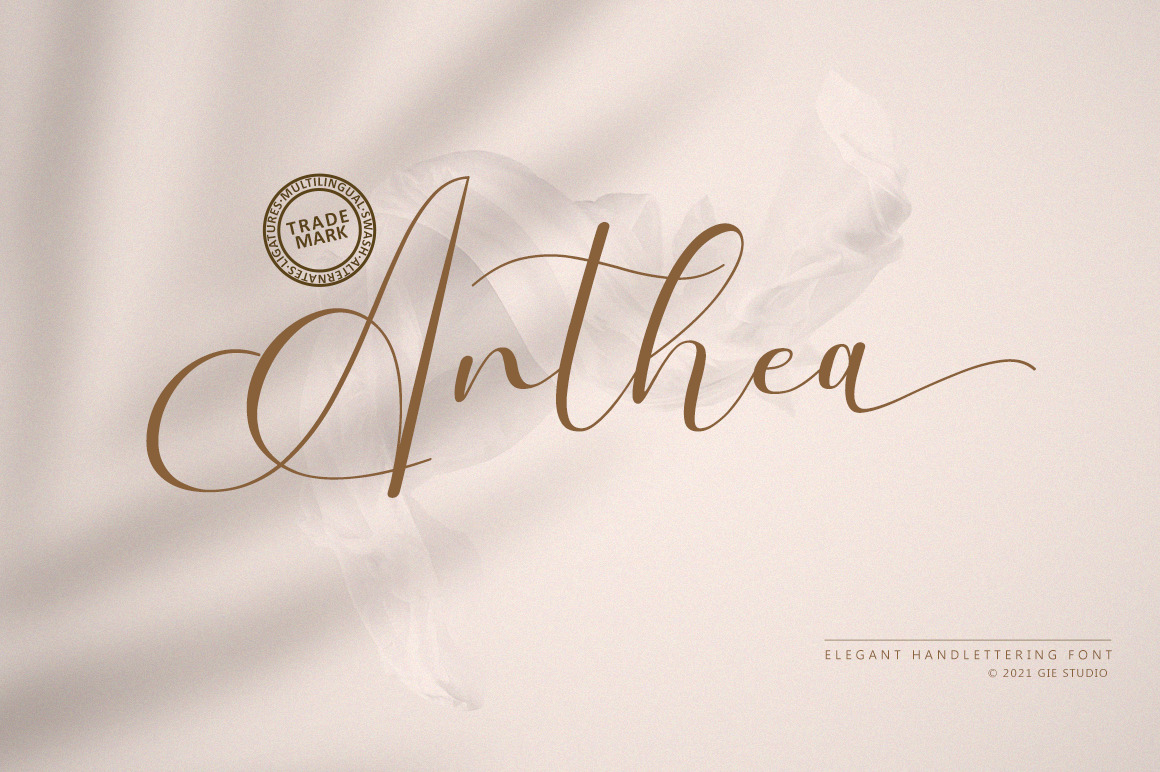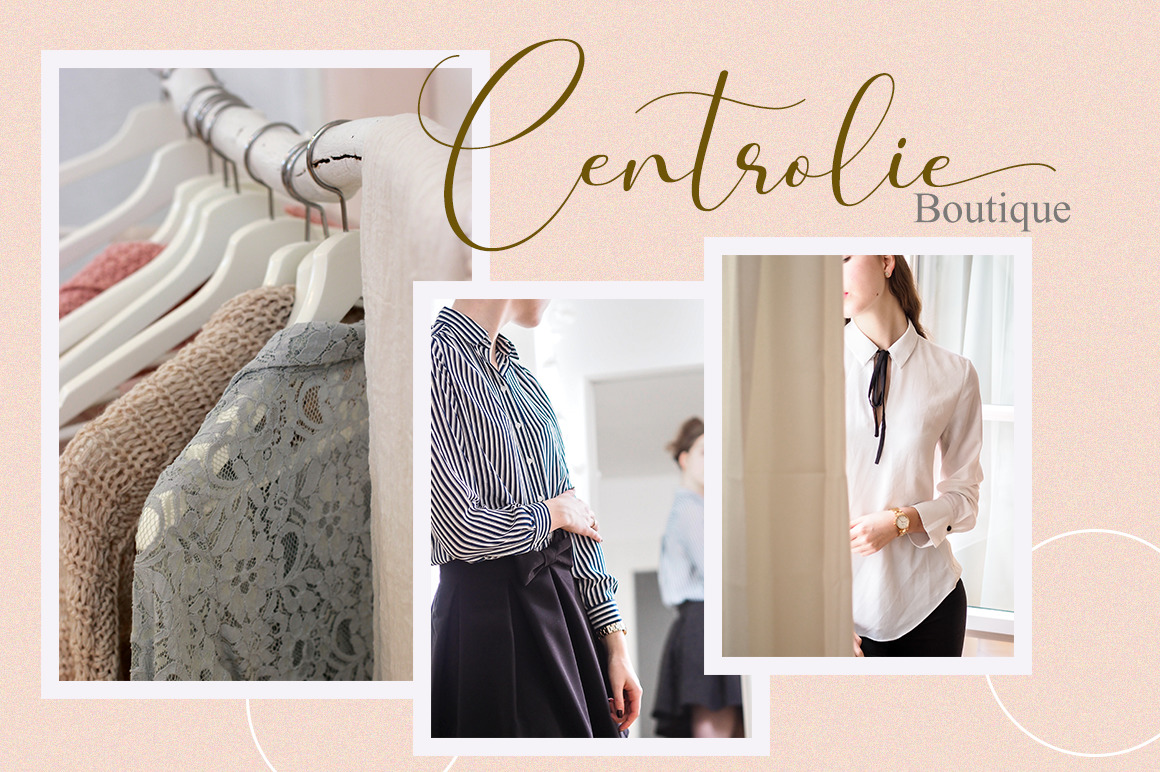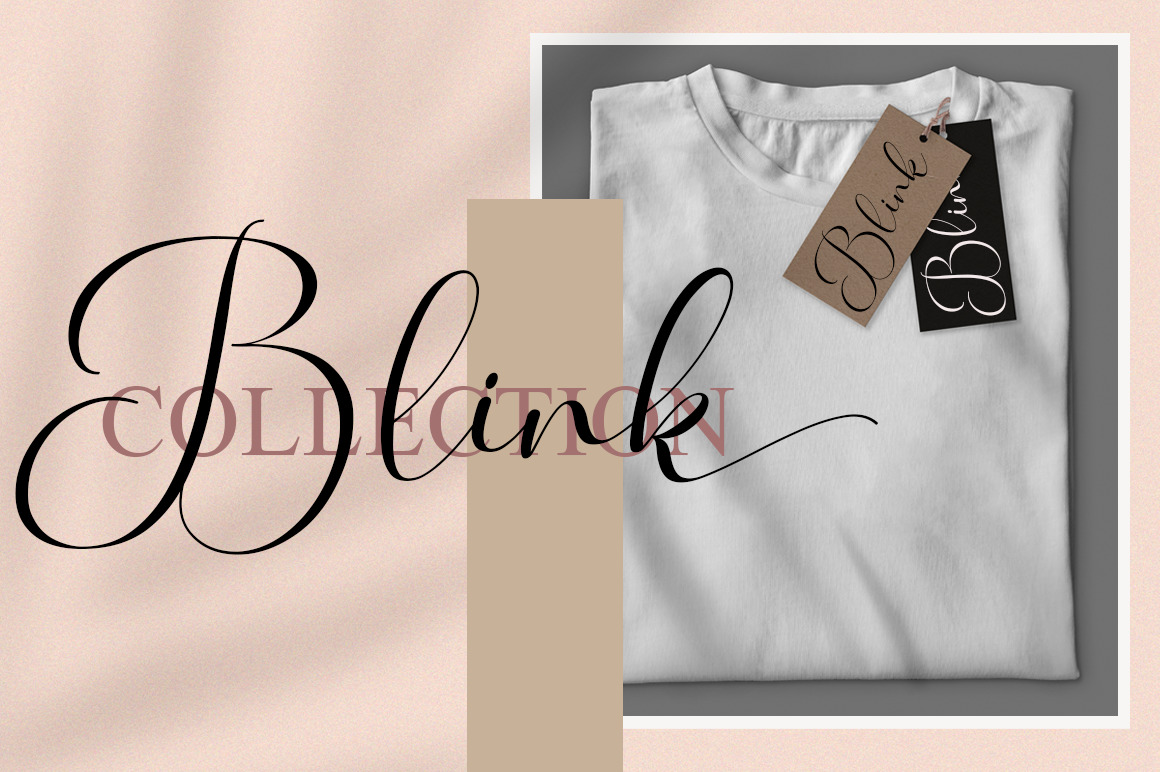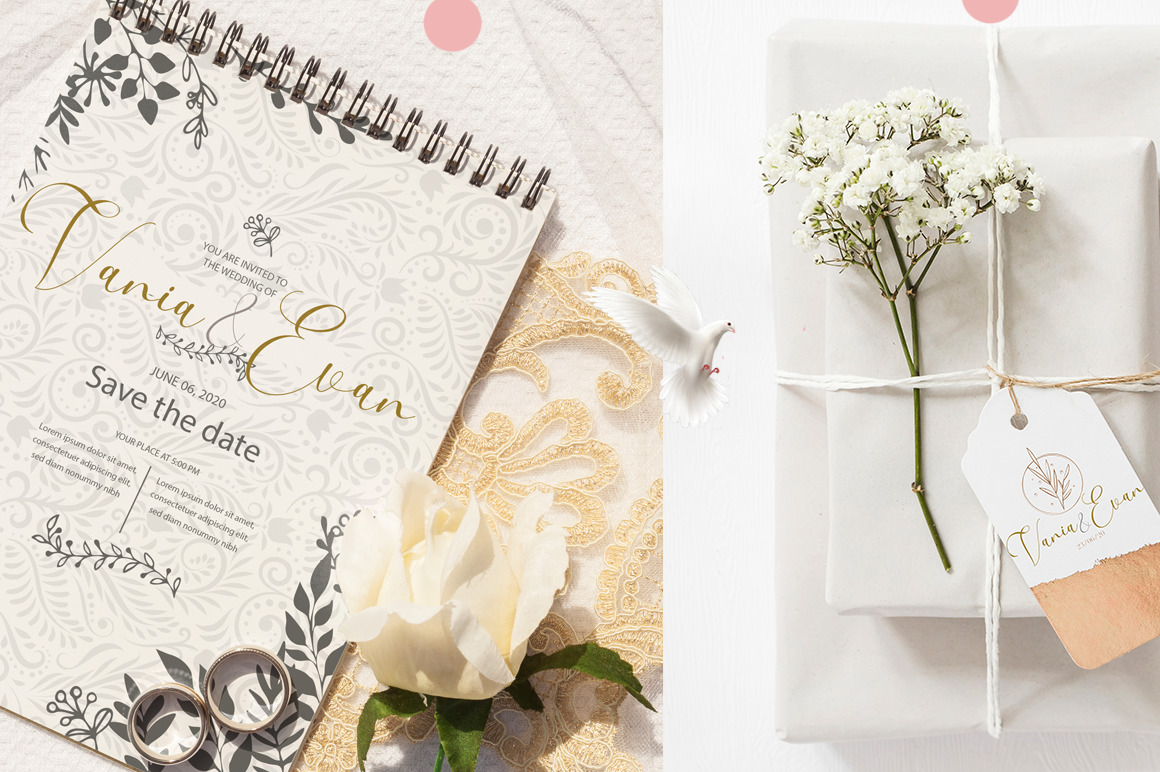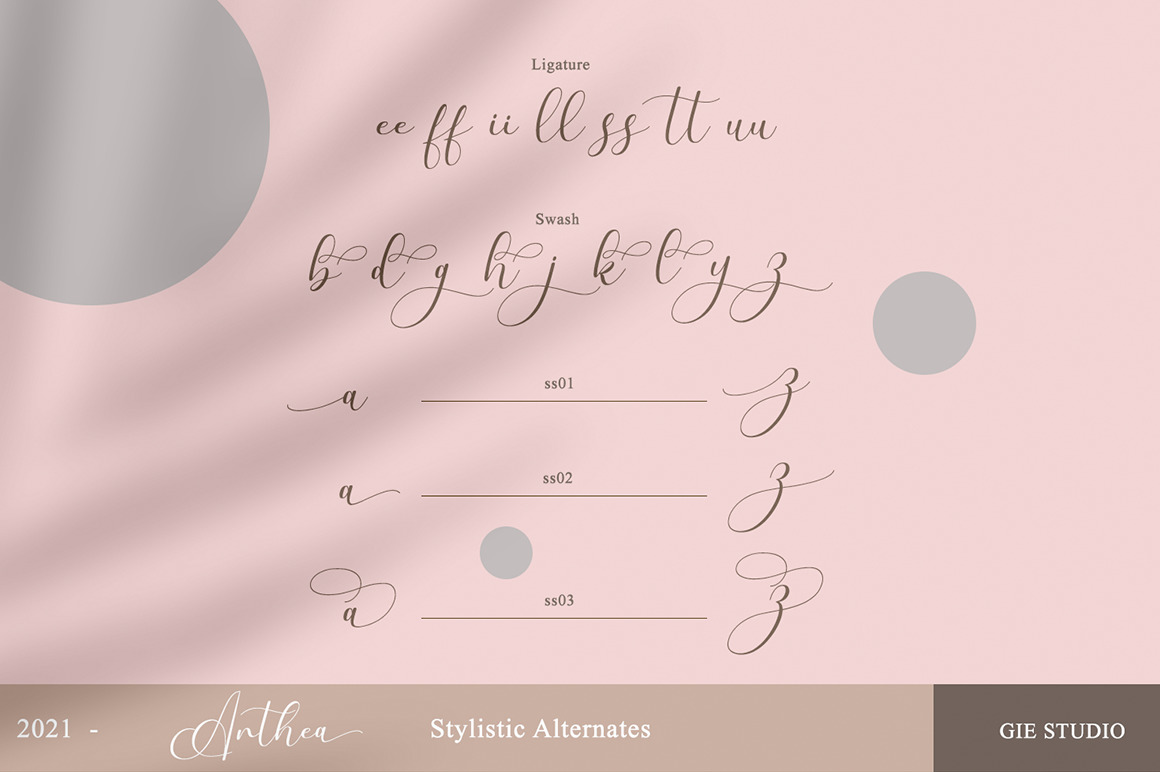
Anthea Font
Anthea is a lovely and light weight handwritten font. Every letter has a unique and beautiful touch, which will make your design come alive ! This font will be very interesting if you use it for all your design purposes such as; logos, wedding invitation, business cards, printed quotes, invitations of all sorts, cards, packaging, and your website or social media branding.
- Swash
- Stylistic Alternates
- Multilingual support for 91 Country